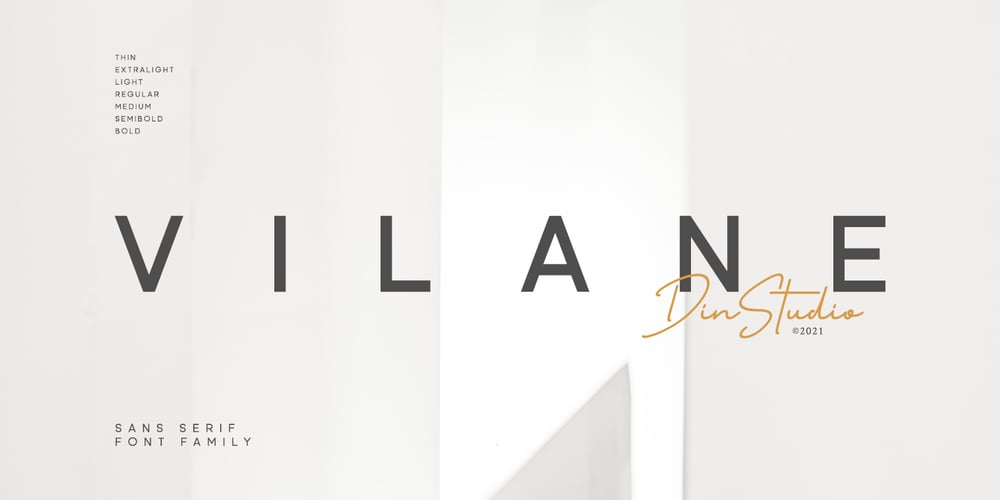
Vilane Font Family was designed by Donis Miftahudin and published by Din Studio. Vilane contains 7 styles and family package options. Hi, Everyone! Want to make your branding bold? Looking for a font that exudes fabulous, style, and adventure? Then, we got the solution for you.Introducing Vilane – A Sans Serif Font FamilyA package that will delight you. With this family, you will get many options to captivate, engage, and inspire your audience and clients. These fonts can be used for a host of different content needs and projects. Perfect for social media branding projects, fashion designs, printed quotes, packaging, or even as a stylish text overlay to any background image. Our font always includes Multilingual Support to make your branding reach a global audience. Inspire your audience, clients, or guests with this beautiful, statement font. Features: Multilingual Support PUA Encoded Numerals and Punctuation Thank you for downloading premium fonts from Din Studio